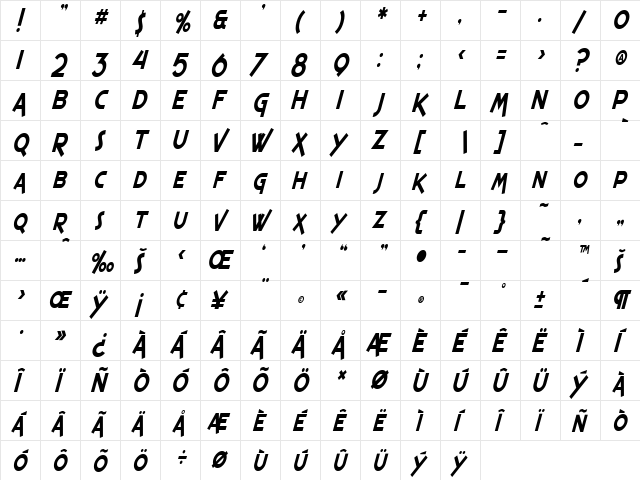
SF Espresso Shack Condensed Italic Font Preview
Design Context for SF Espresso Shack Condensed Typeface
SF Espresso Shack Condensed is a composed and adaptable typeface that performs quietly and consistently across a wide range of design contexts. The slanted form adds forward momentum and visual energy. Its narrow stance lets it pack a punch even in space-constrained designs.
Pro Tip: Try SF Espresso Shack Condensed for annotation and caption copy alongside an upright companion — the contrast in angle creates a dynamic but ordered typographic system.